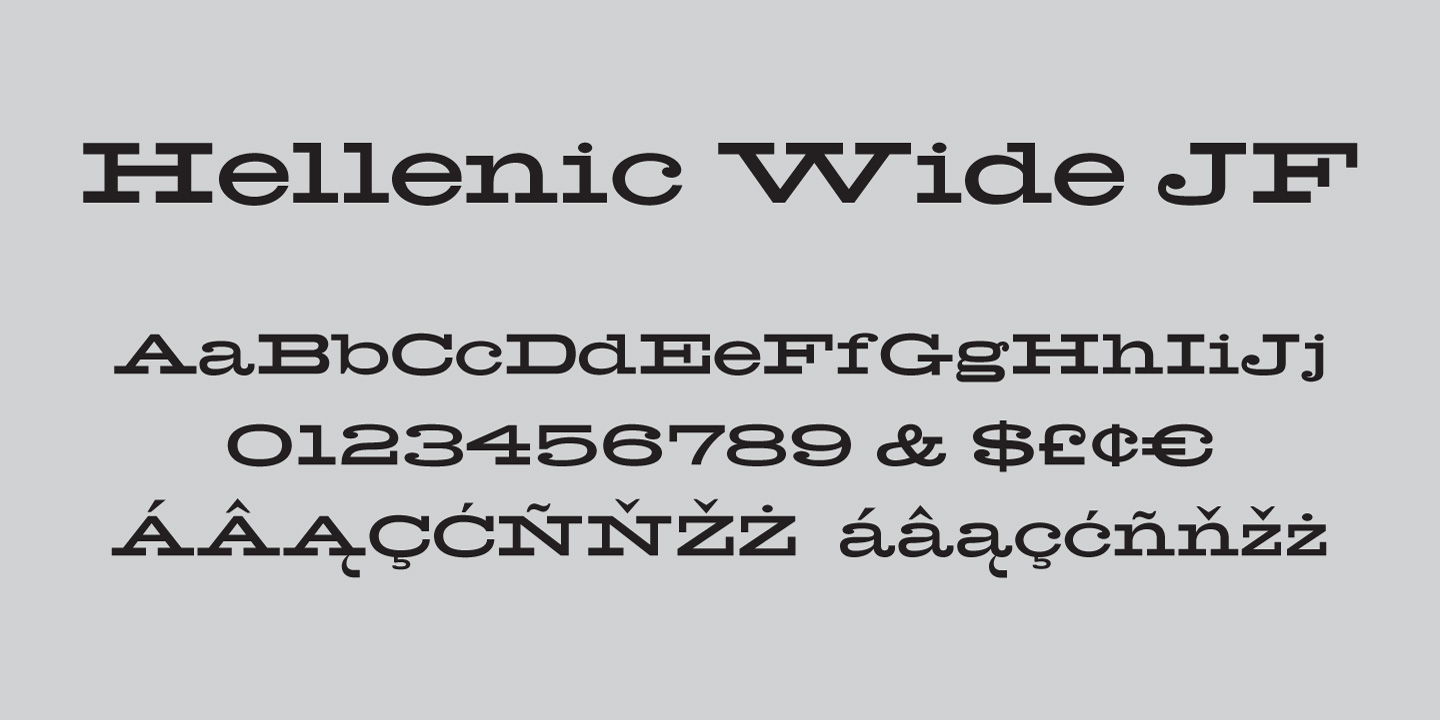
Hellenic Wide JF Font is perfect for classical architecture projects, museum exhibitions, historical documentaries, academic publications, Greek restaurant branding, cultural event posters, ancient history books, and educational materials.
What makes Hellenic Wide JF Font exciting is its authentic connection to classical Greek typography traditions combined with modern readability that brings ancient wisdom into contemporary design. The wide character proportions create commanding presence and timeless elegance.
Hellenic Wide JF Font family includes regular, bold, light, condensed, and extended versions, plus classical Greek characters, diacritical marks, and traditional typographic ornaments that honor ancient Mediterranean heritage.
Embrace classical sophistication with Hellenic Wide JF Font Free Download, the perfect choice for projects celebrating Mediterranean culture and ancient wisdom. This distinguished typeface masterfully balances historical authenticity with contemporary functionality, making it ideal for educational institutions, cultural organizations, and brands seeking to convey tradition and scholarly authority. The expertly crafted letterforms feature proportions inspired by classical stone inscriptions while maintaining excellent legibility across all modern media formats. Design professionals consistently select this font for projects requiring cultural sensitivity and historical accuracy combined with visual impact. Its comprehensive character set supports multiple languages and specialized academic notation, ensuring versatility for international scholarly publications. Experience the majestic beauty of classical typography that connects your contemporary projects with thousands of years of Mediterranean cultural heritage and intellectual tradition.